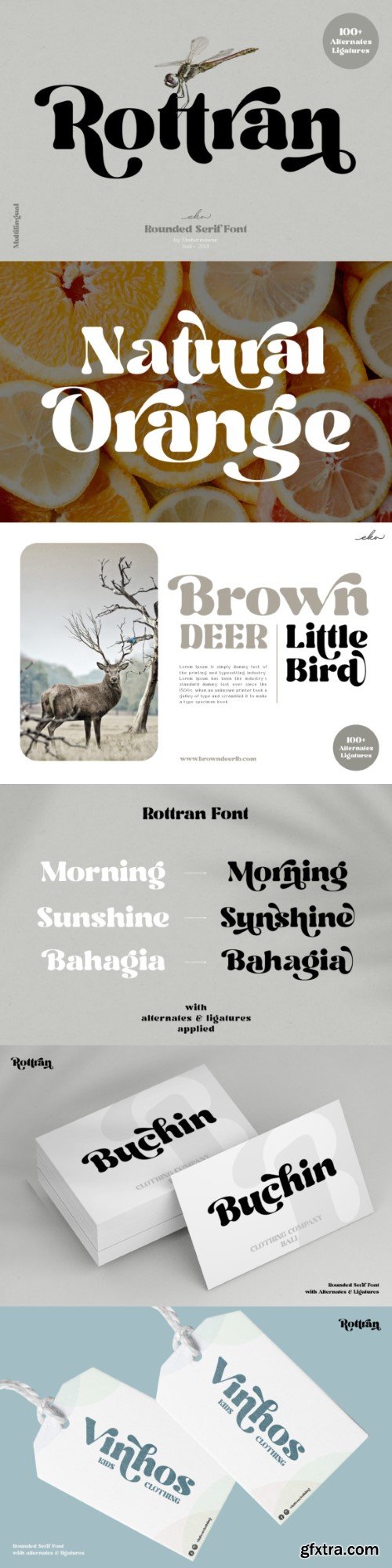
Rottran is an exclusive and bold display typeface. It is PUA encoded, allowing effortless access to all the intricate glyphs and swashes. Incorporate it into your projects with confidence, and you will be pleased with the outcome.